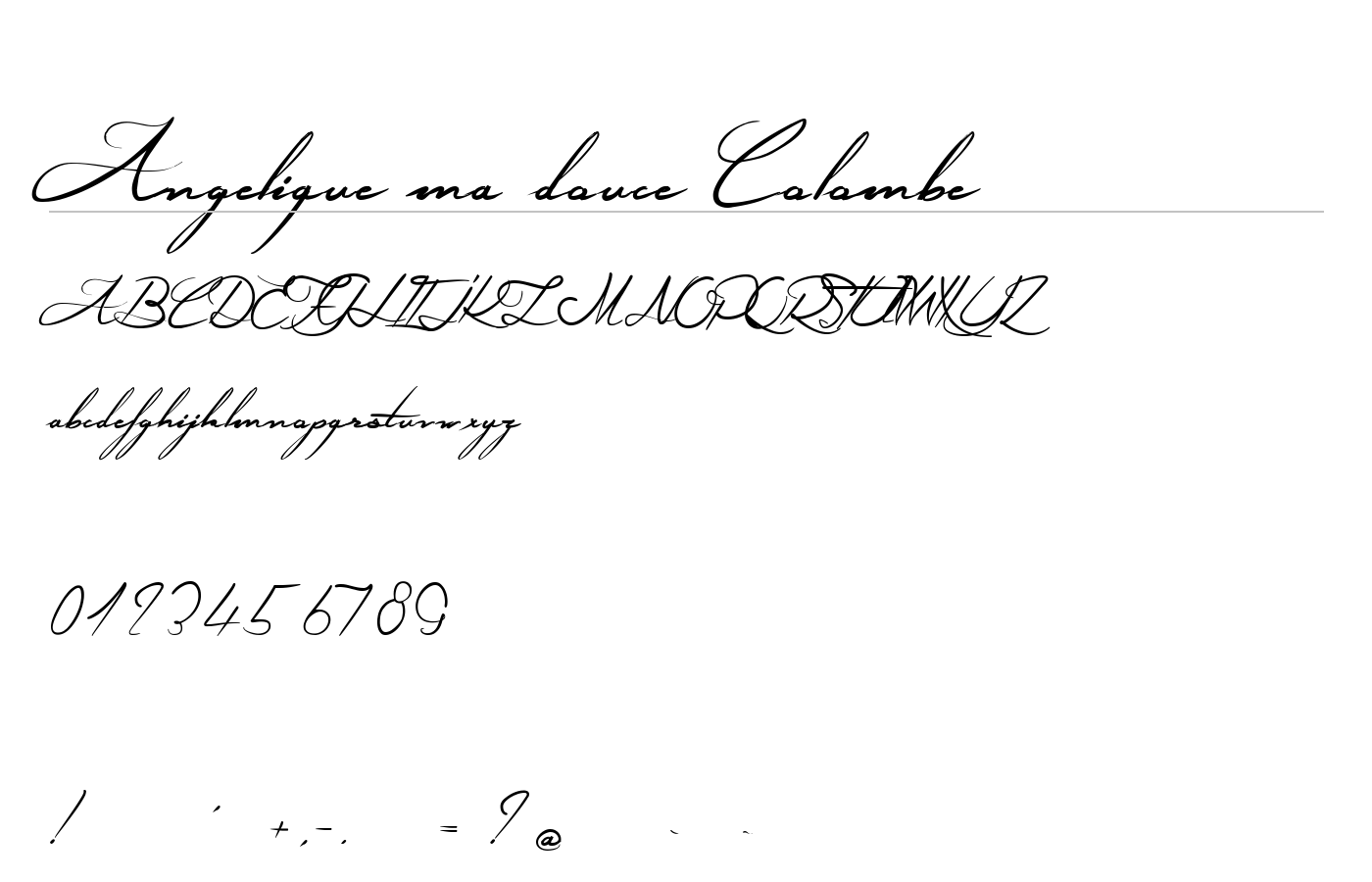
Angelique ma douce Colombe is an elegant, delicate script font characterized by its flowing, slender letterforms and fine hairline strokes. With its graceful cursive style and refined details, it evokes a sophisticated and romantic feel, making it ideal for luxury branding, invitations, and high-end editorial work where a touch of classic charm is desired. This font works beautifully in designs that require a personal, handwritten touch with a sense of timeless elegance.
Angelique ma douce Colombe Font
About Angelique ma douce Colombe Font
| Font family | Angelique ma douce Colombe Font |